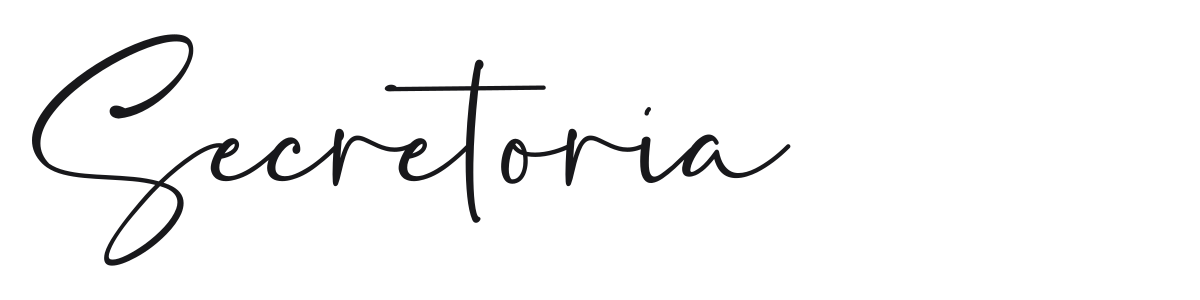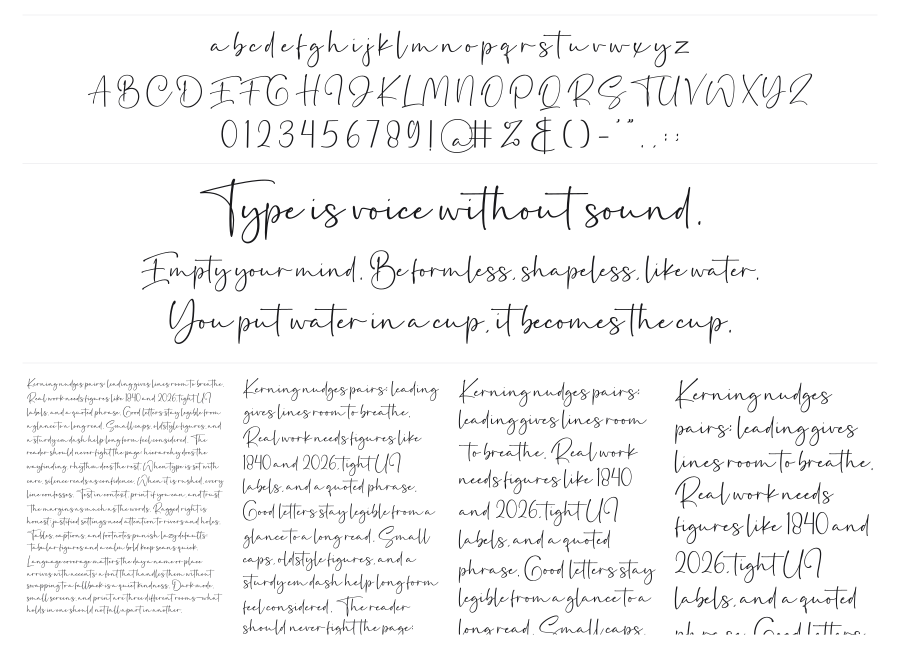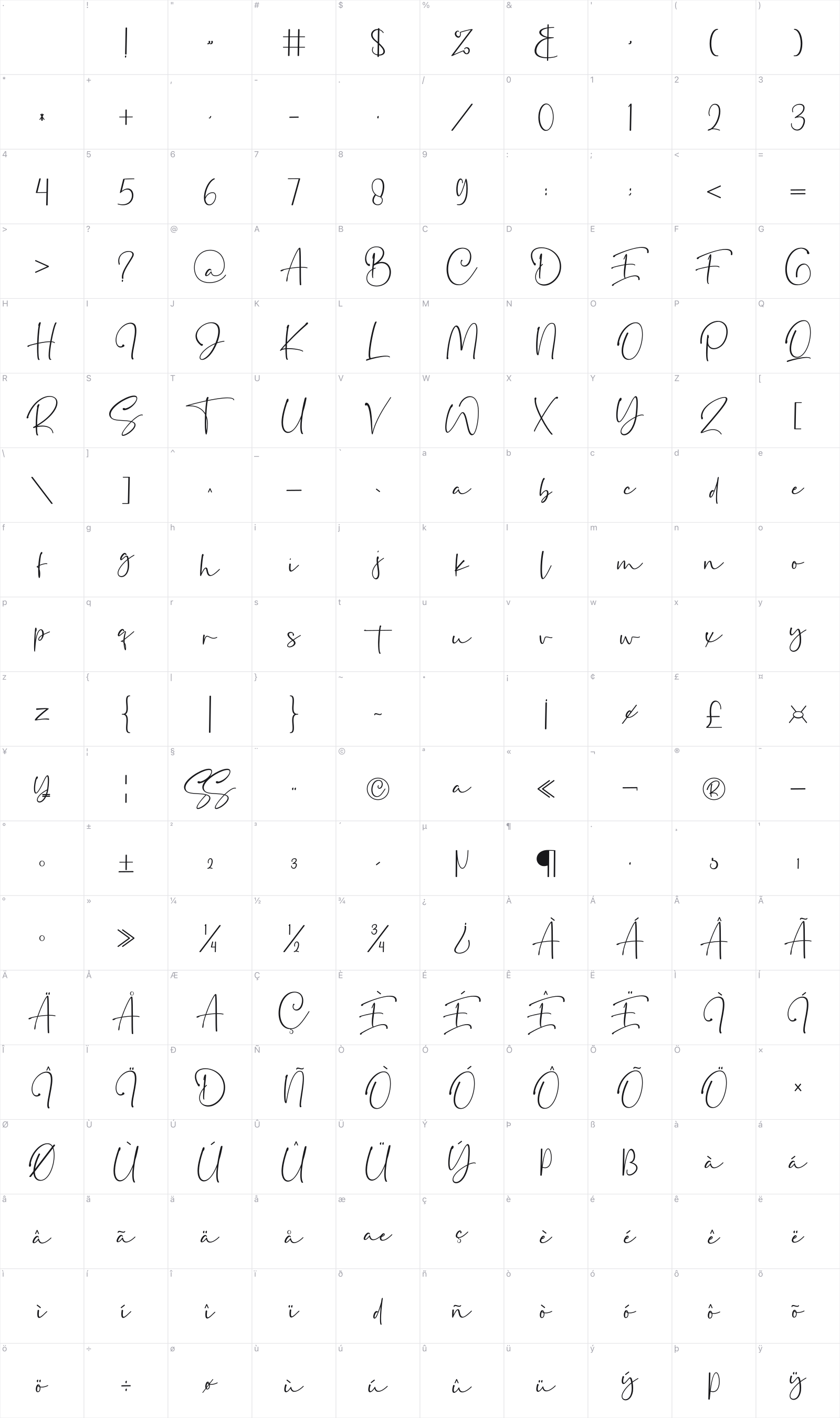
Secretoria
Secretoria is a flowing casual script that feels like effortless handwriting at its most polished. Thin, consistent strokes sweep across the baseline with long connectors and relaxed letter spacing, giving it a breezy, modern romance quality. It lands naturally in branding for weddings, beauty products, boutique labels, and lifestyle content.